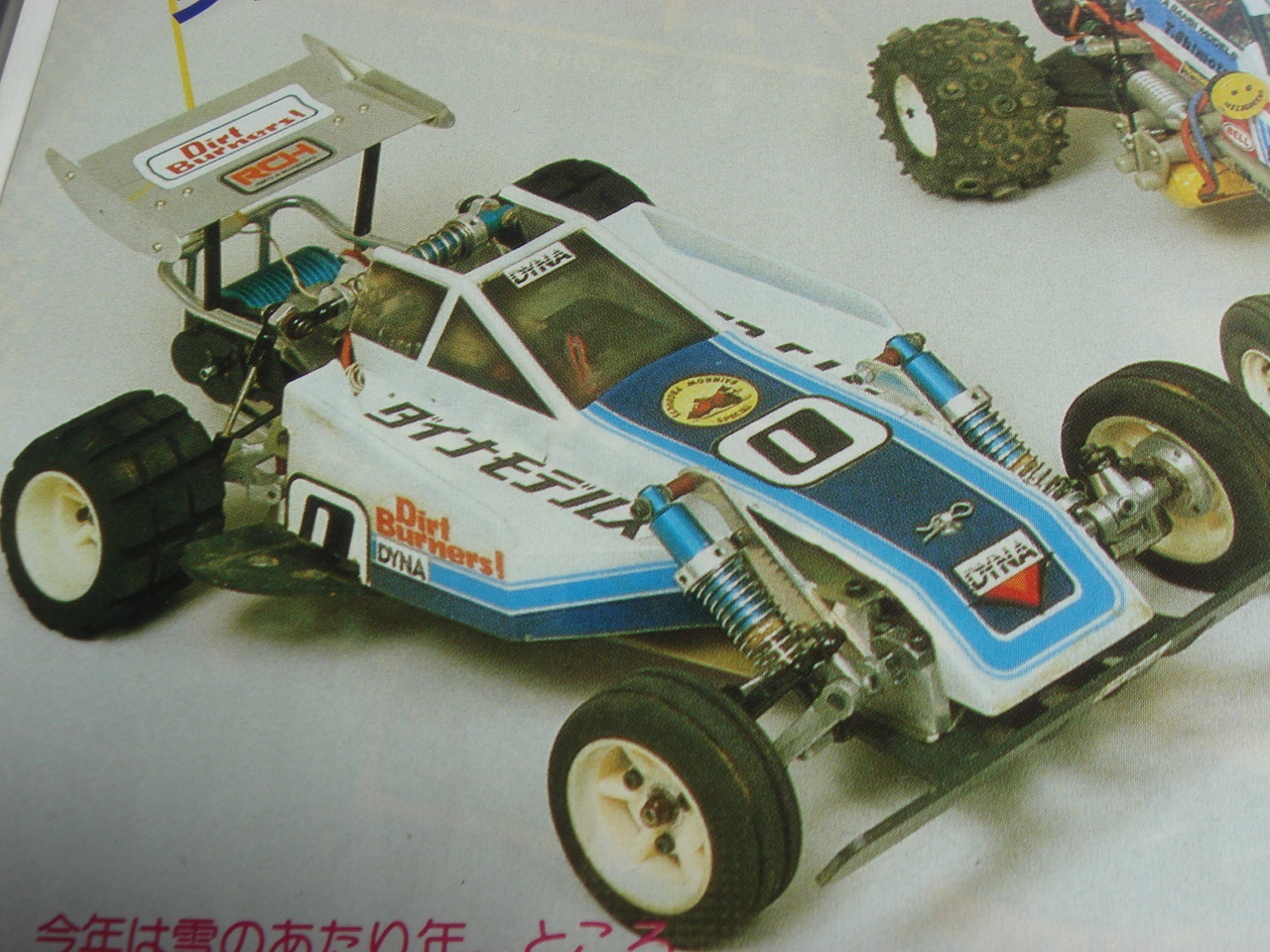
Font found on racing numbers, like the zero on the car in the image.
I would like to find this font to make some custom race numbers for a radio controlled car.
Galactic Storm, by Iconian Fonts, might work for you: